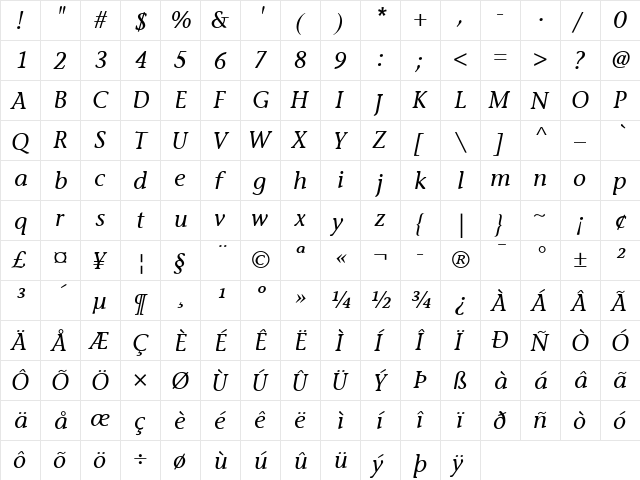
StoneInformal Italic
Design Context for StoneInformal Typeface
StoneInformal offers clean, dependable letterforms without strong stylistic allegiance, making it a practical choice for designers who need flexibility. Its italic angle brings a sense of urgency and motion to the letterforms.
Pro Tip: Use StoneInformal for emphasis, pull quotes, and subheadings where its slanted energy can add rhythm to the layout.